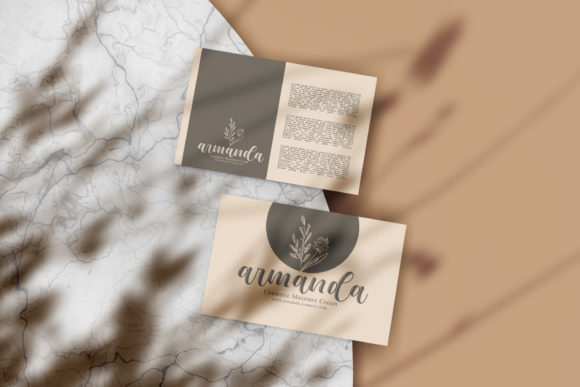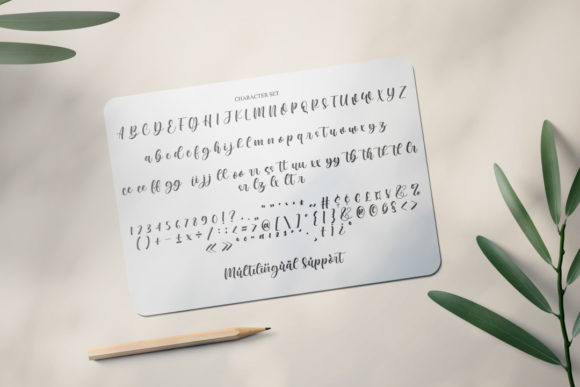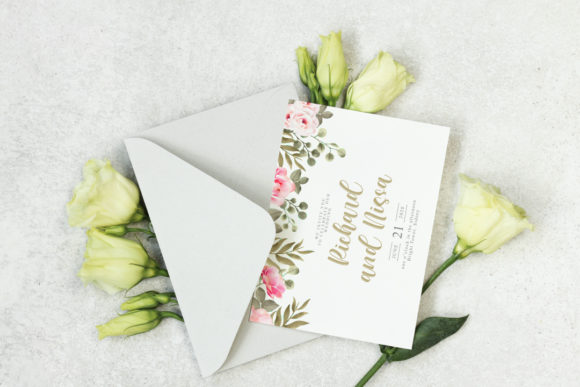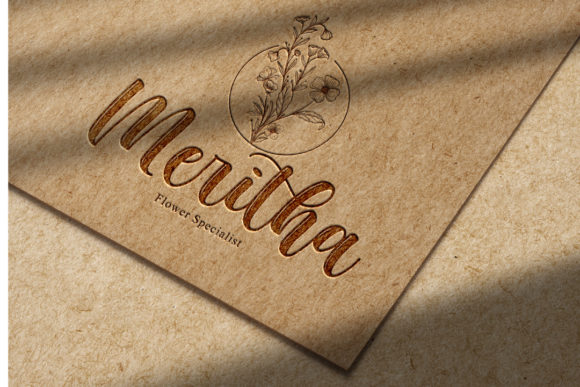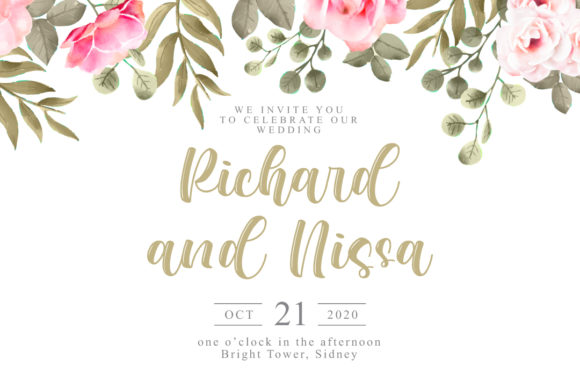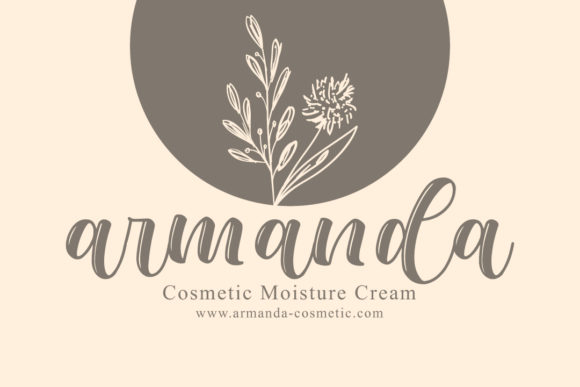
Introducing Before Sunday Font: The Ultimate Handwritten Elegance
Are you a designer or crafter looking for a font that exudes elegance, sophistication, and a touch of whimsy? Look no further than Before Sunday Font, an incredibly distinct, delicate, and timeless handwritten font that is sure to elevate your designs to the next level.
The Perfect Font for Wedding Designs and More
Before Sunday Font is particularly stunning on wedding invitations, making it a top choice for designers and crafters in the wedding industry. Its delicate and elegant strokes evoke a sense of romance and sophistication, perfect for couples looking to make their special day truly unforgettable. But Before Sunday’s uses don’t stop there – it’s also ideal for thank you cards, quotes, greeting cards, logos, business cards, and every other design that needs a handwritten touch.
What Makes Before Sunday Font So Special?
So, what sets Before Sunday Font apart from other fonts on the market? Here are just a few reasons why designers and crafters are falling in love with this beautiful font:
- Unique and Distinctive: Before Sunday Font boasts a truly one-of-a-kind design that will make your creations stand out from the crowd.
- Delicate and Elegant: The font’s delicate strokes and elegant curves make it perfect for designs that require a touch of sophistication.
- Timeless: Unlike trendy fonts that may quickly go out of style, Before Sunday Font is a timeless classic that will remain beautiful for years to come.
- Versatile: Whether you’re designing wedding invitations, business cards, or social media graphics, Before Sunday Font is versatile enough to fit any design need.
How to Use Before Sunday Font in Your Designs
Ready to start using Before Sunday Font in your designs? Here are a few tips to get you started:
- Pair it with Other Fonts: Before Sunday Font pairs beautifully with other fonts, especially bold and sans-serif fonts. Experiment with different combinations to find the perfect look for your design.
- Use it for Headlines and Titles: The font’s elegant and delicate strokes make it perfect for headlines and titles. Use it to add a touch of sophistication to your designs.
- Add it to Your Digital Toolkit: Before Sunday Font is a versatile font that can be used in a variety of digital designs, from social media graphics to website headers.
Perfect for Crafters and Designers
Before Sunday Font is a must-have for any crafter or designer looking to add a touch of elegance and sophistication to their designs. Whether you’re creating:
- Business cards and branding materials
- Social media graphics and quotes
- Greeting cards and thank you cards
Before Sunday Font is the perfect choice. Its unique and distinctive design will make your creations stand out, while its delicate and elegant strokes will add a touch of whimsy and romance.
In conclusion, Before Sunday Font is a beautiful and versatile handwritten font that is perfect for designers and crafters looking to add a touch of elegance and sophistication to their designs. With its unique and distinctive design, delicate and elegant strokes, and timeless appeal, Before Sunday Font is sure to become a staple in your design toolkit.